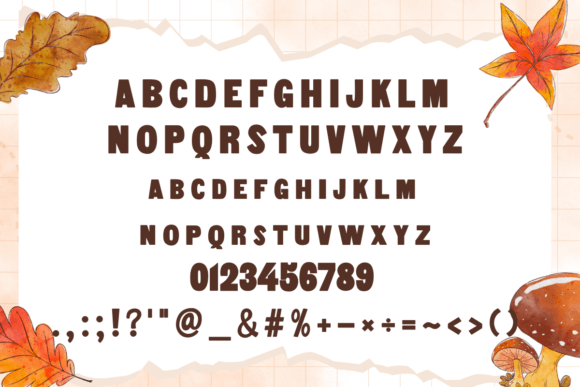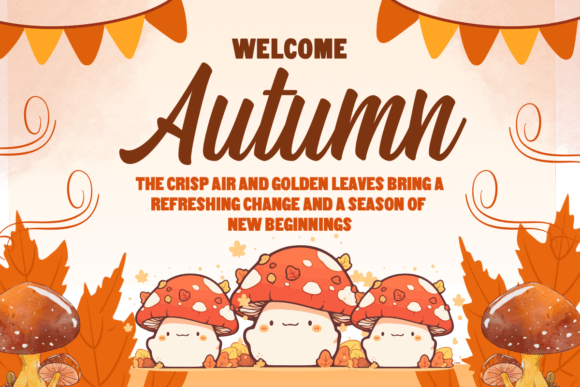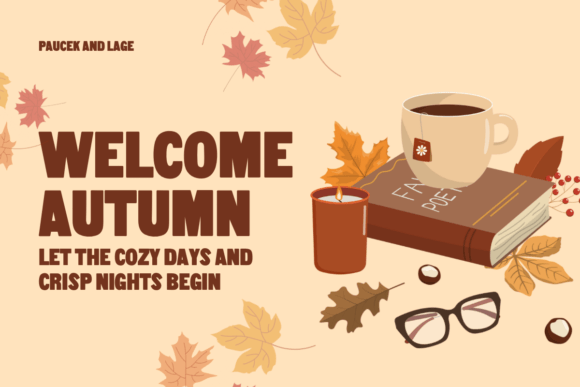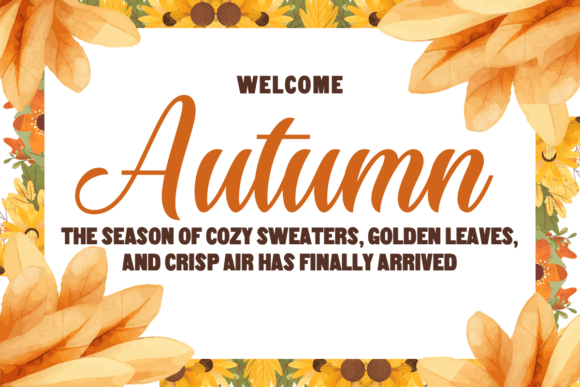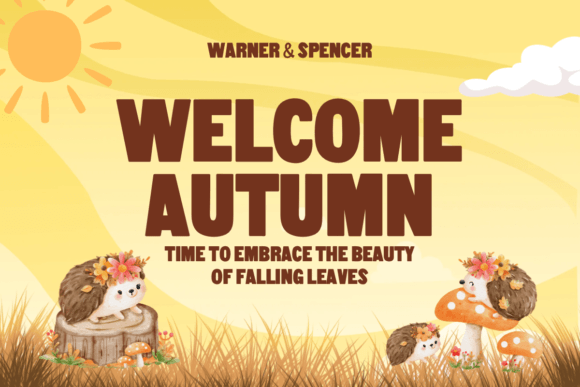
Embracing the Cozy Feel of Autumn with the Perfect Font: Autumn Season Font
As the seasons change and autumn leaves start to fall, designers and crafters look for inspiration to infuse their projects with the cozy and crisp feeling of the season. One essential element in creating autumn-themed designs is choosing the right font. This is where the Autumn Season Font comes into play – a bold, easy-to-read display font that embodies the simplicity and warmth of fall.
What is Autumn Season Font?
Autumn Season Font is a bold, easy-to-read display font characterized by its simple, clean lines. Its strong and straightforward design makes it perfect for headlines, posters, and signs. The font’s style reflects the cozy and crisp feeling of fall, making it great for seasonal projects and eye-catching designs.
Key Features of Autumn Season Font
- Bold and Easy to Read: The font’s bold design ensures that your text stands out, while its clean lines make it easy to read, even from a distance.
- Simple and Clean Lines: The simplicity of the font’s design allows it to be versatile and adaptable to various design contexts.
- Cozy and Crisp Feeling: The font’s style captures the essence of autumn, making it perfect for seasonal designs that aim to evoke a sense of warmth and coziness.
Why Choose Autumn Season Font for Your Designs?
Autumn Season Font is an excellent choice for designers and crafters looking to add a touch of autumn to their projects. Here are some reasons why:
- Perfect for Headlines and Posters: The font’s bold design makes it ideal for headlines and posters that need to grab attention.
- Great for Seasonal Projects: The font’s autumn-inspired style makes it perfect for seasonal projects, such as fall-themed posters, invitations, and social media graphics.
- Versatile and Adaptable: The font’s simple design allows it to be used in various contexts, from digital designs to print materials.
Using Autumn Season Font in Your Designs
Autumn Season Font can be used in a variety of design projects, including:
- Fall-themed Posters: Create eye-catching posters that capture the essence of autumn, with bold headlines and clear, easy-to-read text.
- Seasonal Invitations: Add a touch of autumn to your invitations, whether it’s for a fall party, a harvest-themed event, or a seasonal sale.
- Social Media Graphics: Use Autumn Season Font to create engaging social media graphics that evoke the cozy and crisp feeling of fall.
Tips for Getting the Most Out of Autumn Season Font
To make the most of Autumn Season Font, consider the following tips:
- Pair it with Complementary Fonts: Combine Autumn Season Font with complementary fonts to create visual interest and hierarchy in your designs.
- Experiment with Colors: Try out different color schemes that evoke the feeling of autumn, such as warm oranges, yellows, and reds.
- Play with Texture and Patterns: Add texture and patterns to your designs to give them a more autumnal feel.
Autumn Season Font is a versatile and stylish font that captures the essence of the autumn season. Its bold, easy-to-read design makes it perfect for headlines, posters, and signs, while its cozy and crisp feeling makes it great for seasonal projects and eye-catching designs. Whether you’re a designer or crafter, Autumn Season Font is an excellent choice for adding a touch of autumn to your projects.